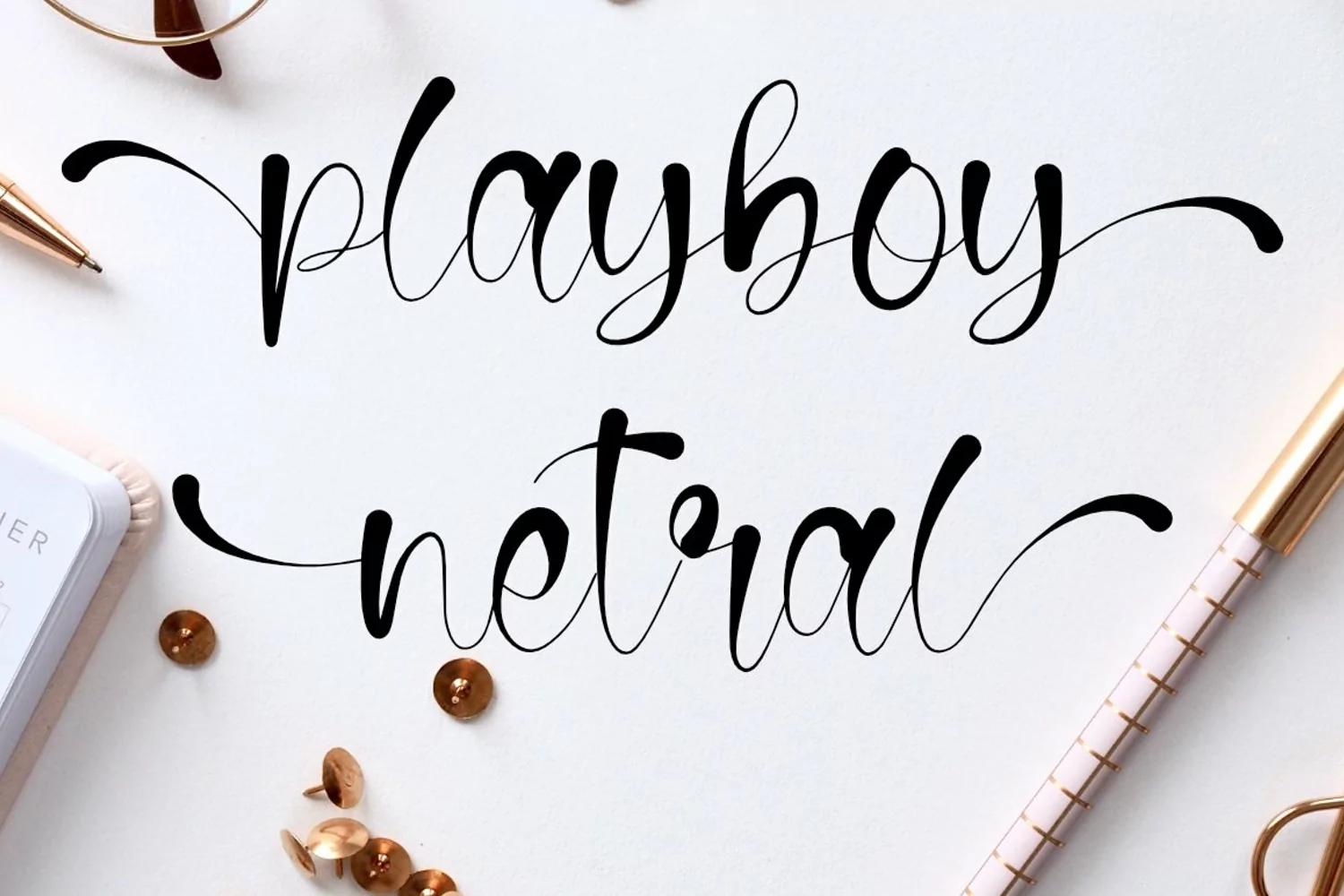
Butterfly
Butterfly font script . This font was designed by handwriting, and it has a modern and unique forms of calligraphy, the writing style is very natural.
The Features of this fonts is;
* Standart ligatures
* Stylistic Alternates
* Contextual Alternates
* Stylistic sets
Can be used for various purposes.such as headings, logos, wedding invitation, t-shirt, letterhead, signage, lable, news, posters, badges etc. To enable the OpenType Stylistic alternates, you need a program that supports OpenType features such as Adobe Illustrator CS, Adobe Indesign & CorelDraw X6-X7.